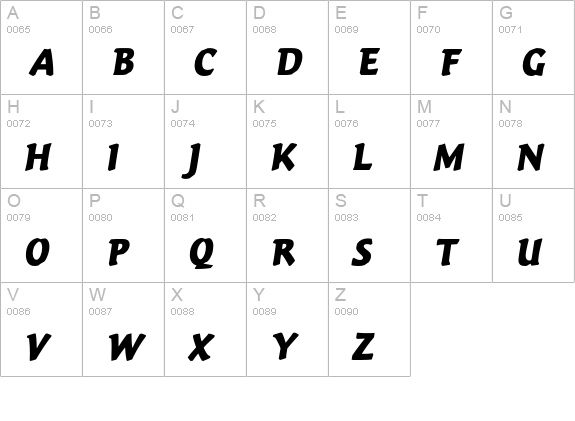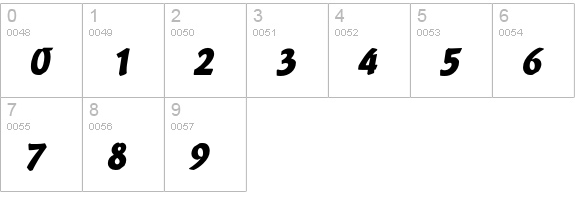
VarioEF-RegularItalic Font Details
VarioEF-RegularItalic is a beautifully crafted font that exudes elegance and sophistication. With its slanted and italicized design, this font adds a touch of flair and artistic expression to any project. The smooth curves and graceful strokes of each letter create a harmonious balance that is pleasing to the eye. This font is perfect for adding a touch of sophistication to your designs, whether it's for branding, advertising, or any creative endeavor. The italicized style adds a sense of movement and dynamism, making it ideal for conveying a sense of energy and excitement. One of the best things about VarioEF-RegularItalic is that it is free! That's right, you can freely download this font at FontsMarket.com. This means that you can enhance your designs without breaking the bank. Whether you're a professional designer or a DIY enthusiast, this font is accessible to everyone. So why wait? Download VarioEF-RegularItalic now and add a touch of elegance to your next project. With its free availability and stunning design, this font is sure to elevate your designs to new heights.